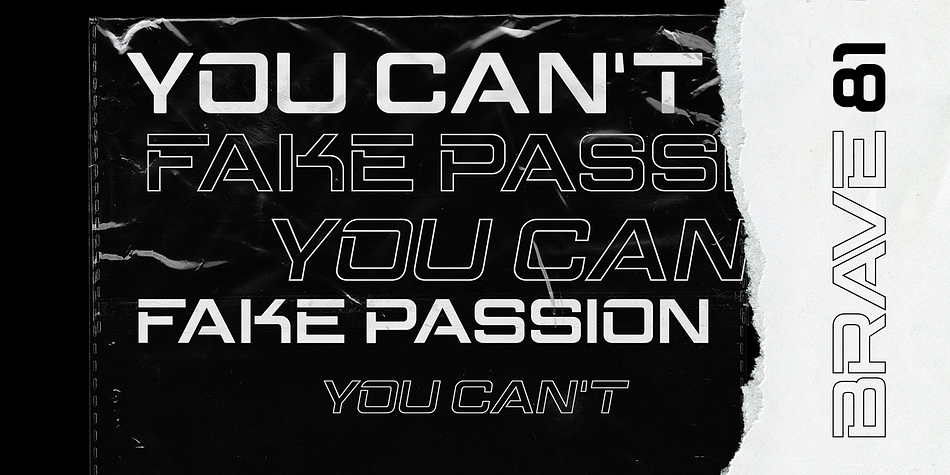
Brave Eighty One
Designed by Alit Suarnegara, Brave Eighty One is a display and stencil font family. This typeface has six styles and was published by Alit Design.
Brave Eighty one is inspired by futuristic design concepts and space-like design concepts. This font is good for future, modern, space, sports, bold and speed themed designs.
Foundry Alit Design
Styles Display, Stencil
Designer Alit Suarnegara